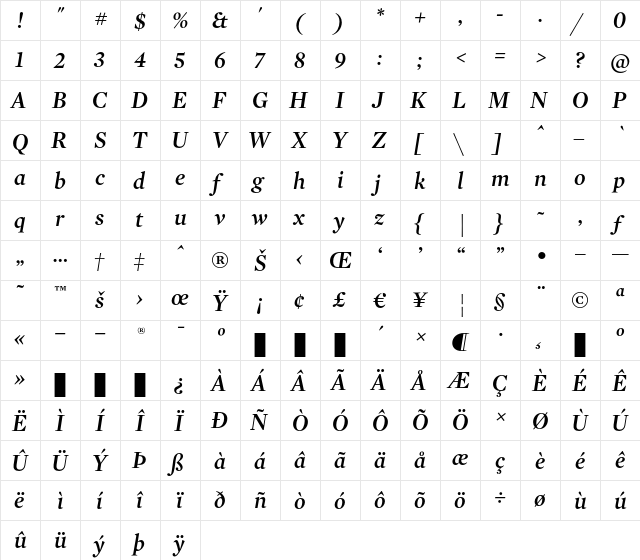
Mercury Display Semi Italic
Design Context for Mercury Display Typeface
Mercury Display is built around its visual character rather than neutral utility — its distinctive forms are designed to make an impression at display sizes. The dynamic lean of this cut emphasises speed and emphasis in any layout.
Font Pairing: Pair with a clean neutral sans-serif for body copy to let Mercury Display's character lead without overwhelming the composition.
Pro Tip: Treat Mercury Display as the centrepiece of your typographic hierarchy. One strong heading set in a decorative face can carry an entire layout.